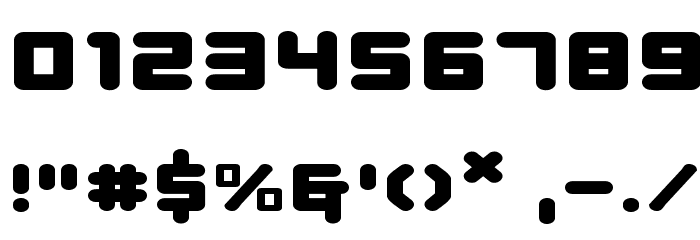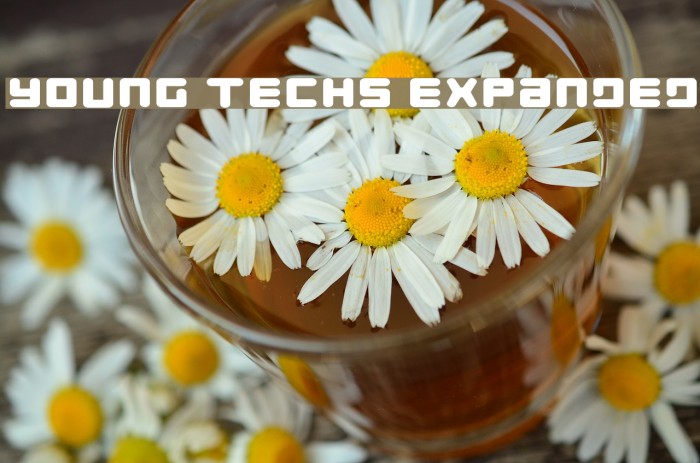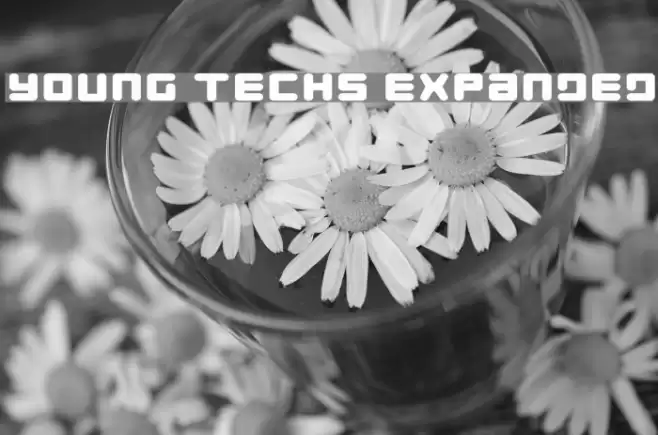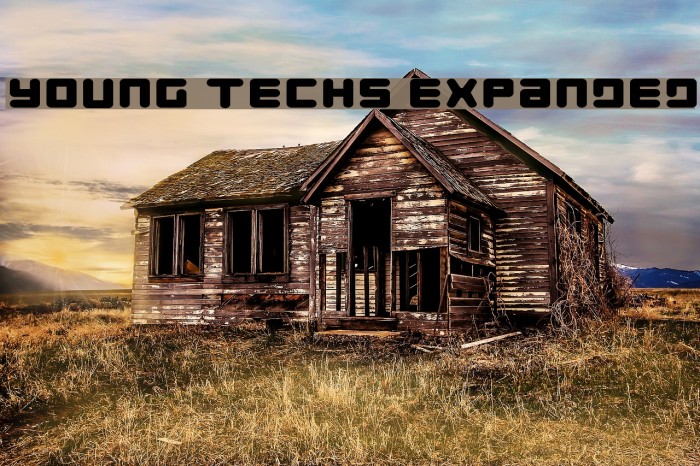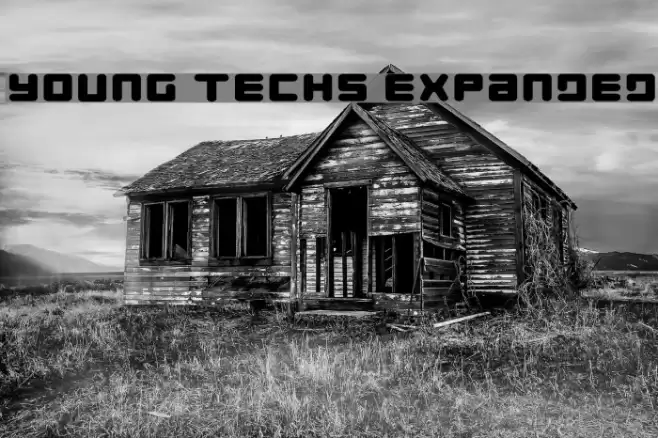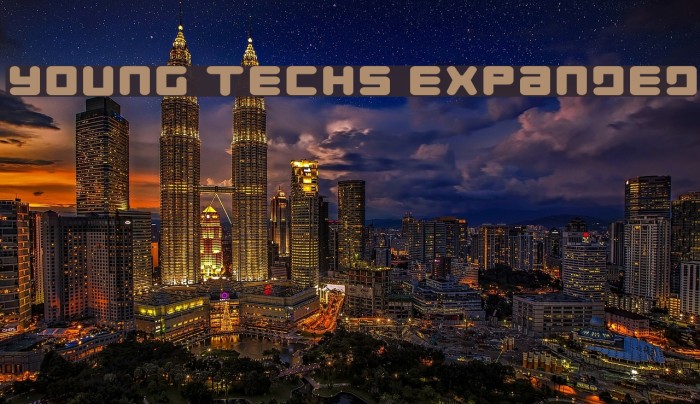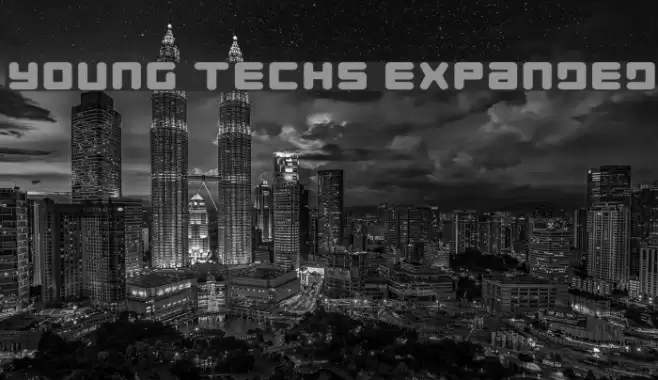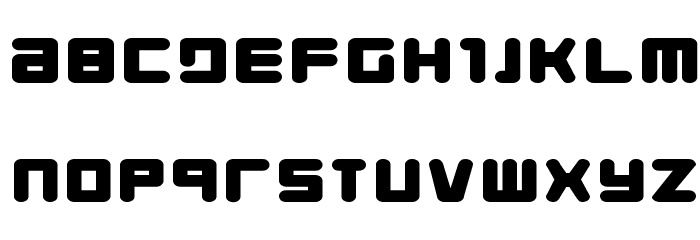
Young Techs Expanded Font
✎ Futuristic
Young Techs Expanded Description
This font features a bold and futuristic design, characterized by its rounded edges and uniform stroke width. The letters are wide and have a distinct geometric appearance, making them highly legible and suitable for modern digital interfaces. The uppercase and lowercase letters maintain a consistent style, with a slight variation in size and shape. Numbers and special characters are designed to complement the overall aesthetic, ensuring a cohesive look across all text elements. The font's expanded width gives it a strong presence, ideal for capturing attention in headlines and titles.
| Width | Expanded |
| Use Case | Headlines, Logos, Digital Interfaces |
| Proposed Projects | Ideal for tech branding, digital interfaces, video game graphics, and modern advertising. |